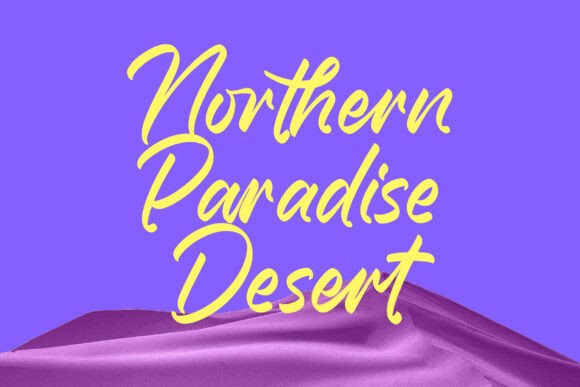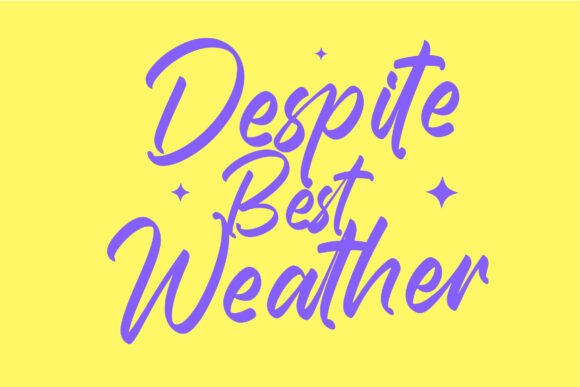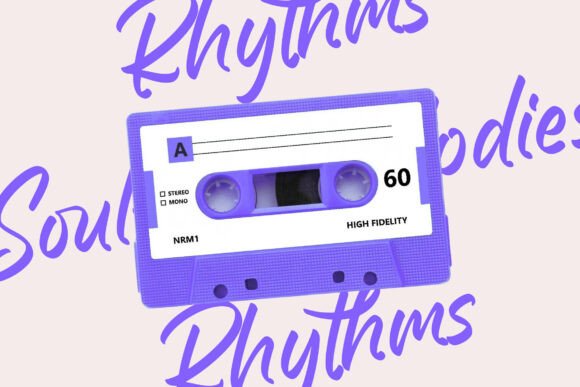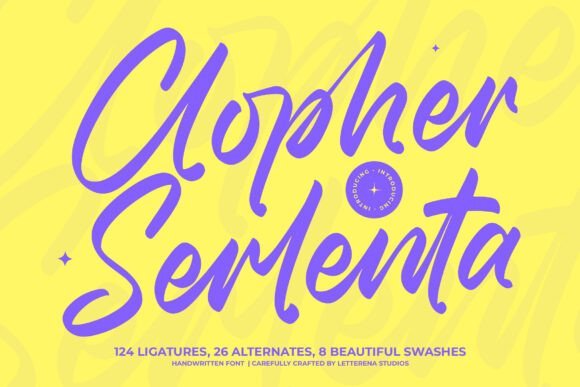
Introduction to Clopher Serlenta Font
Clopher Serlenta – Handwritten Font , from Letterena, is a Luxury Script font, suitable for any projects such as: logos, branding projects, homeware designs, product packaging, mugs, quotes, posters, shopping bags, t-shirts, book covers, name card, invitation cards, greeting cards, label, photography, watermark, special events, and all your other luxury and beautiful projects that need a Luxury Script taste.
Key Features of Clopher Serlenta Font
Why Choose Clopher Serlenta Font?
Clopher Serlenta Font offers exceptional quality and versatility, making it a valuable addition to your design toolkit. Whether you’re creating for personal projects or commercial use, Clopher Serlenta Font delivers professional results.